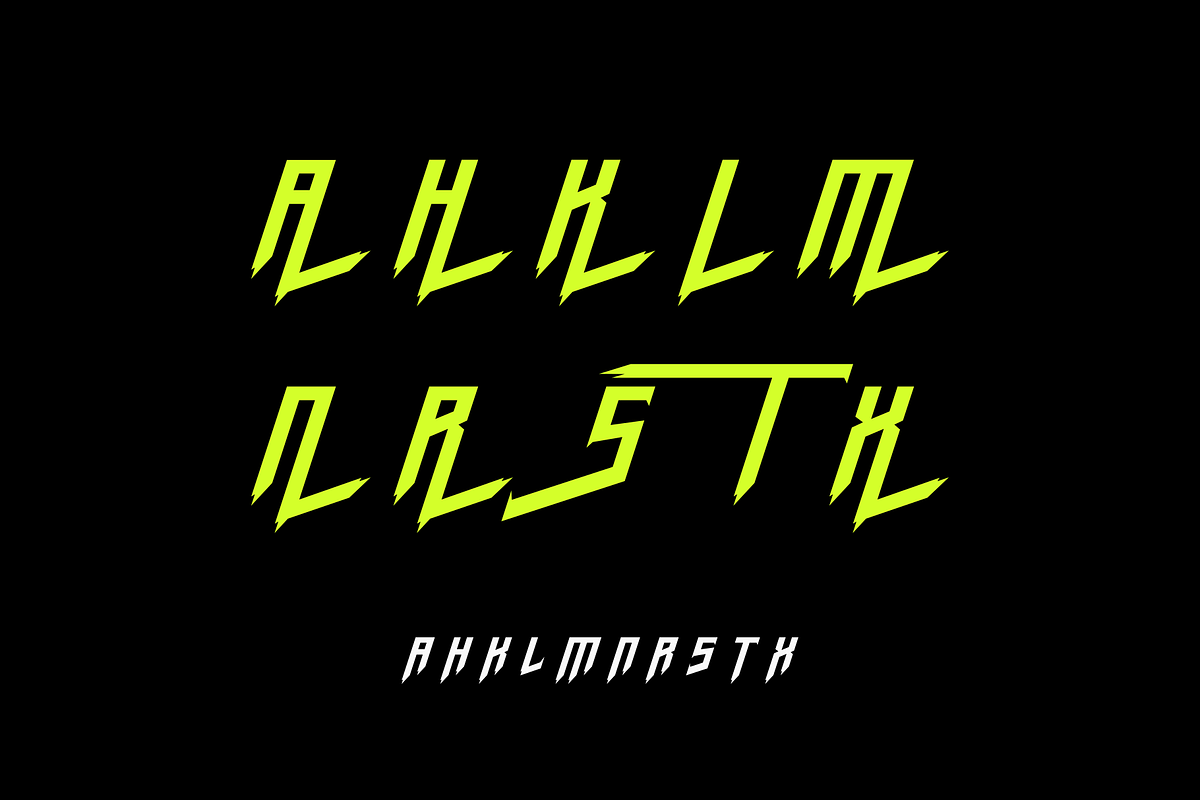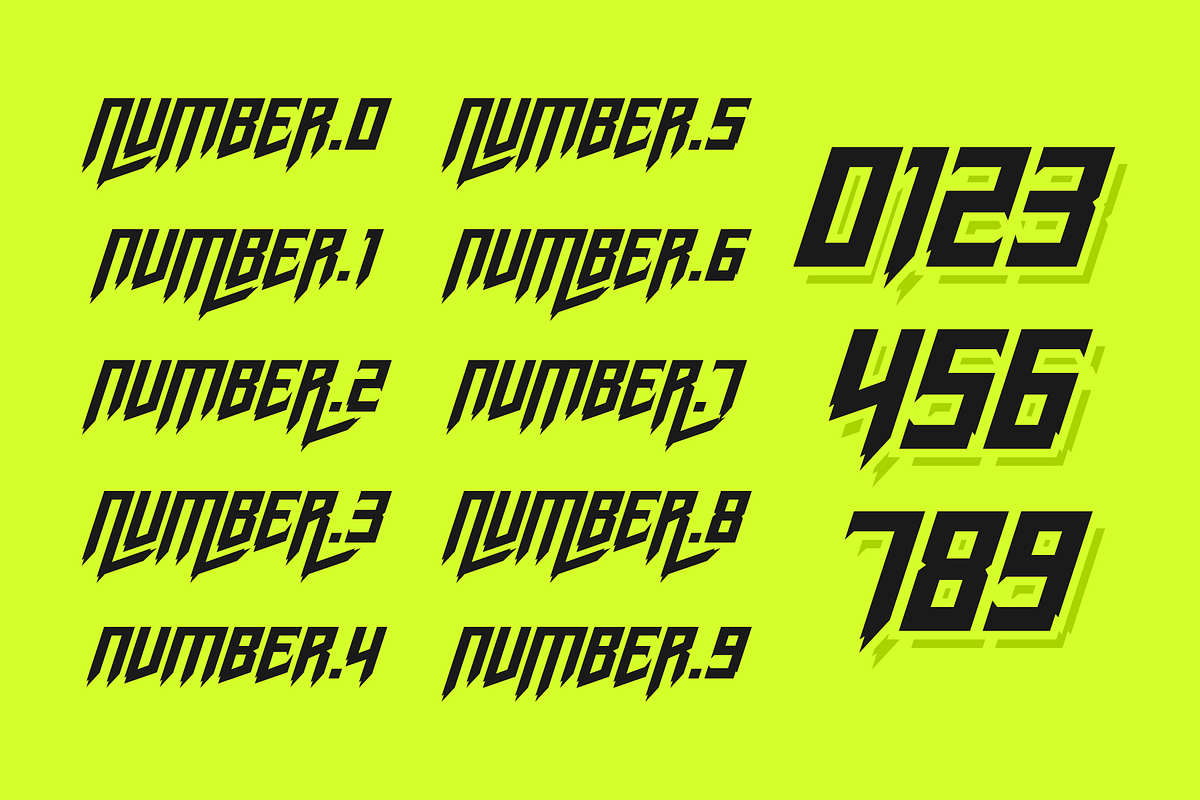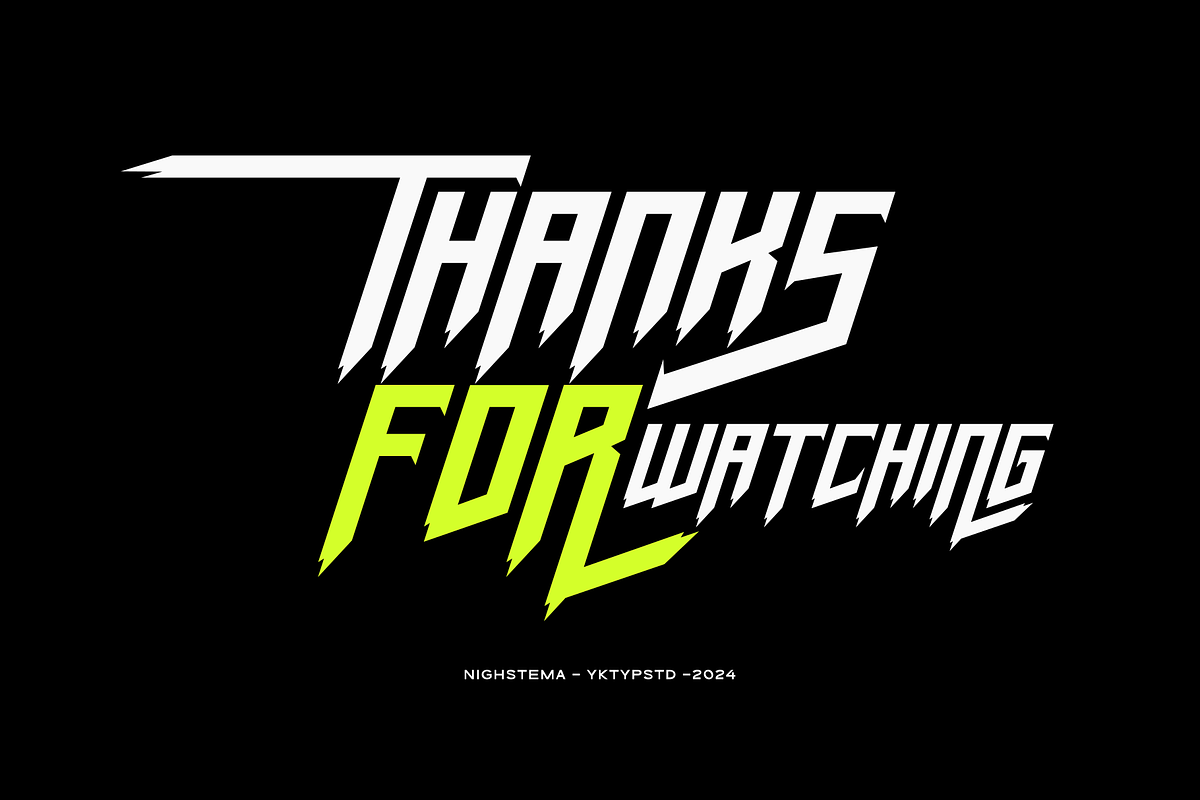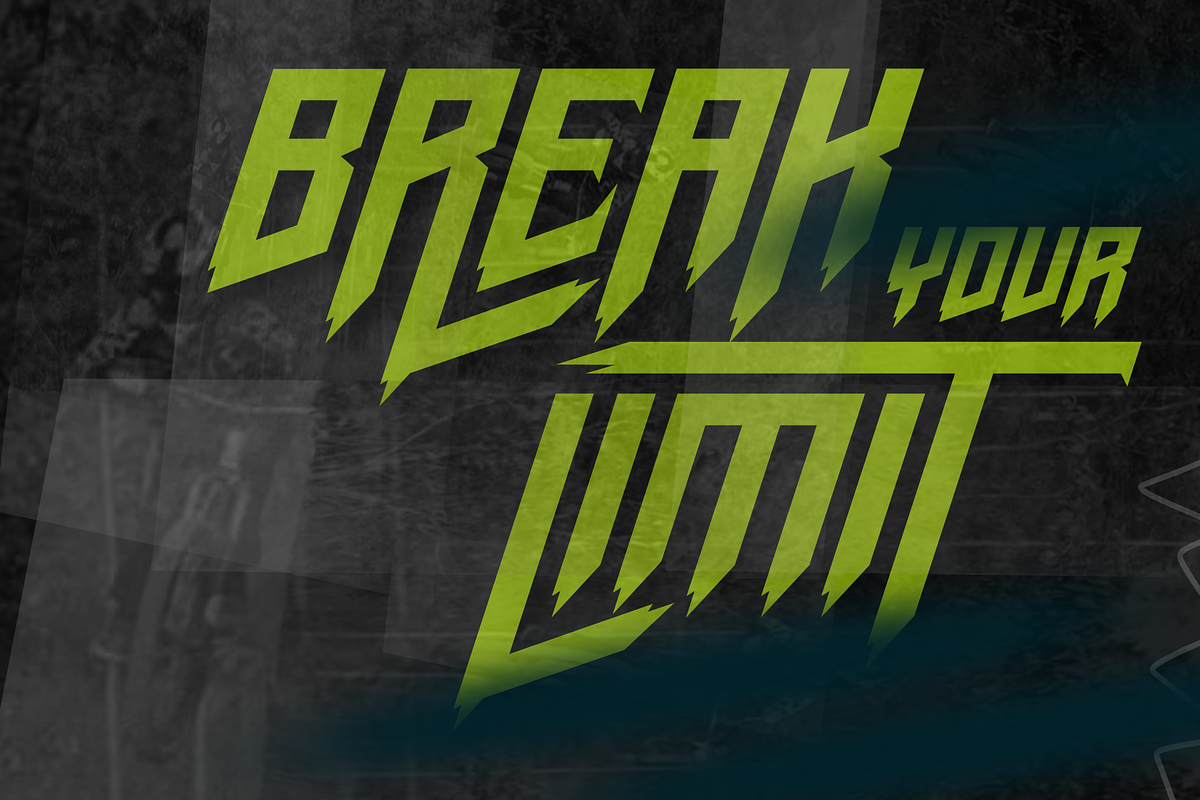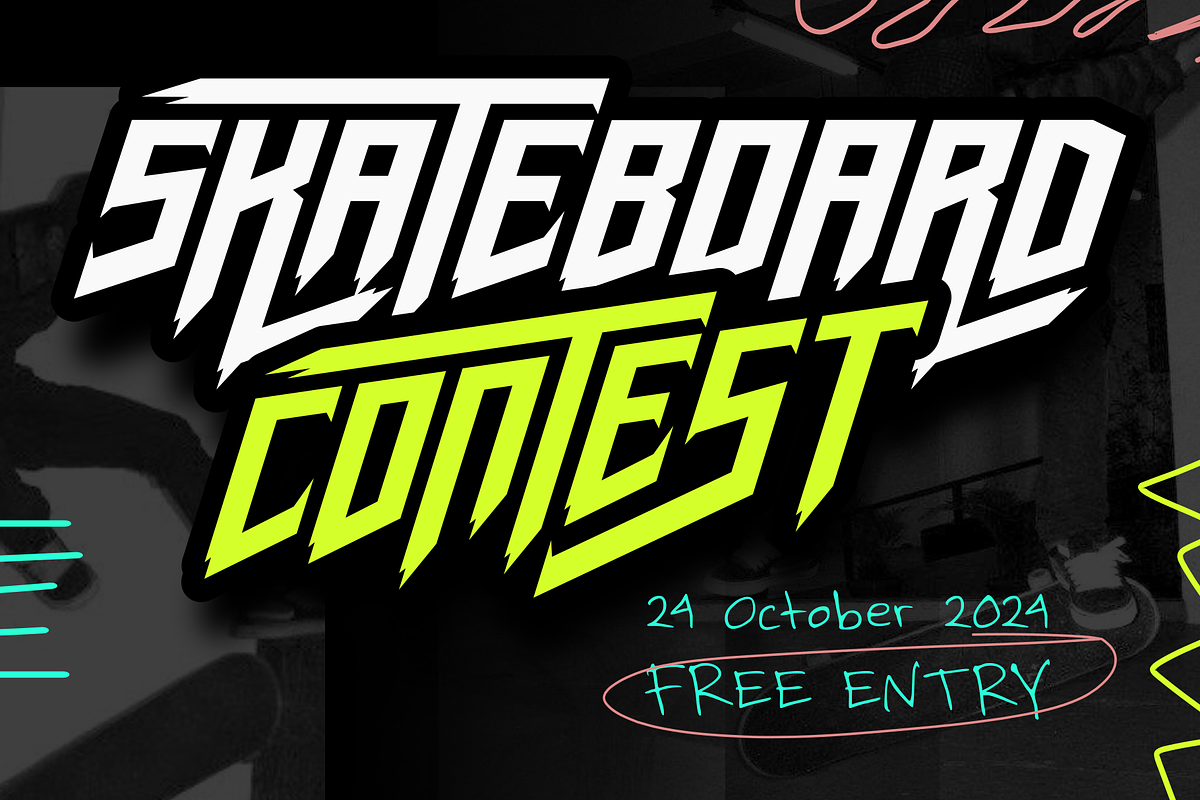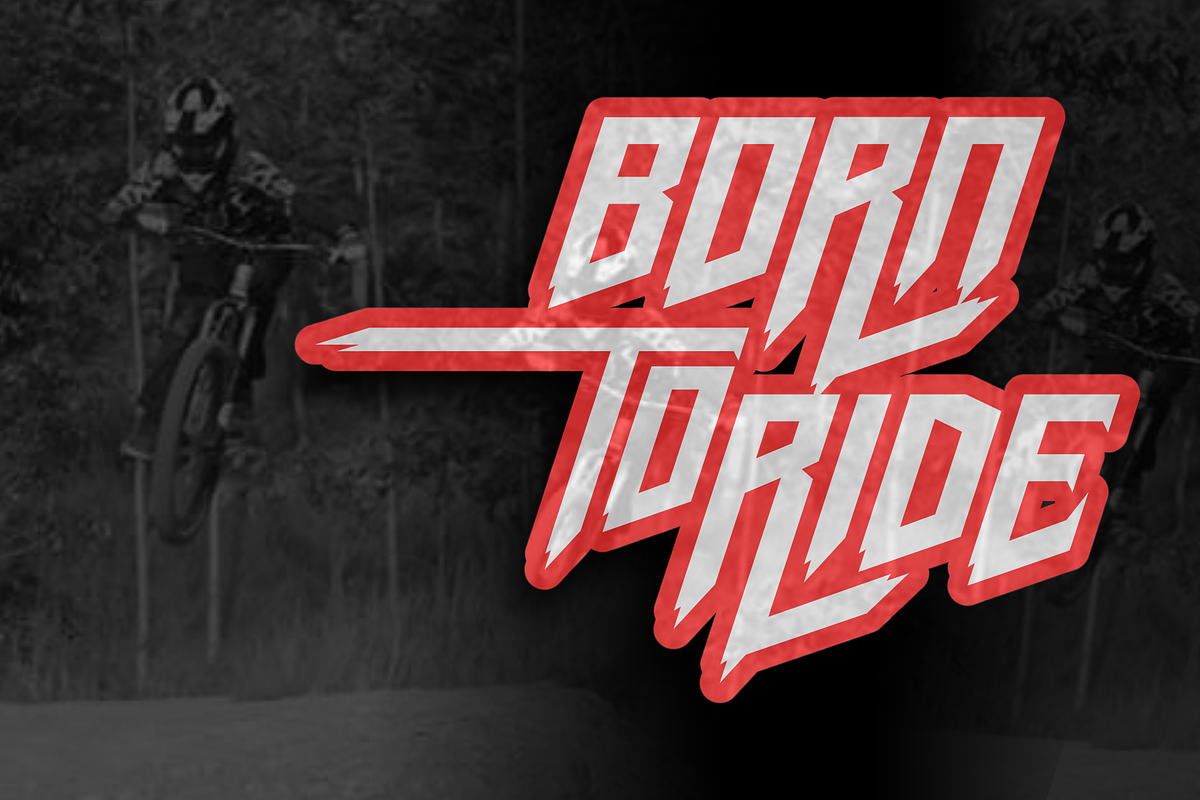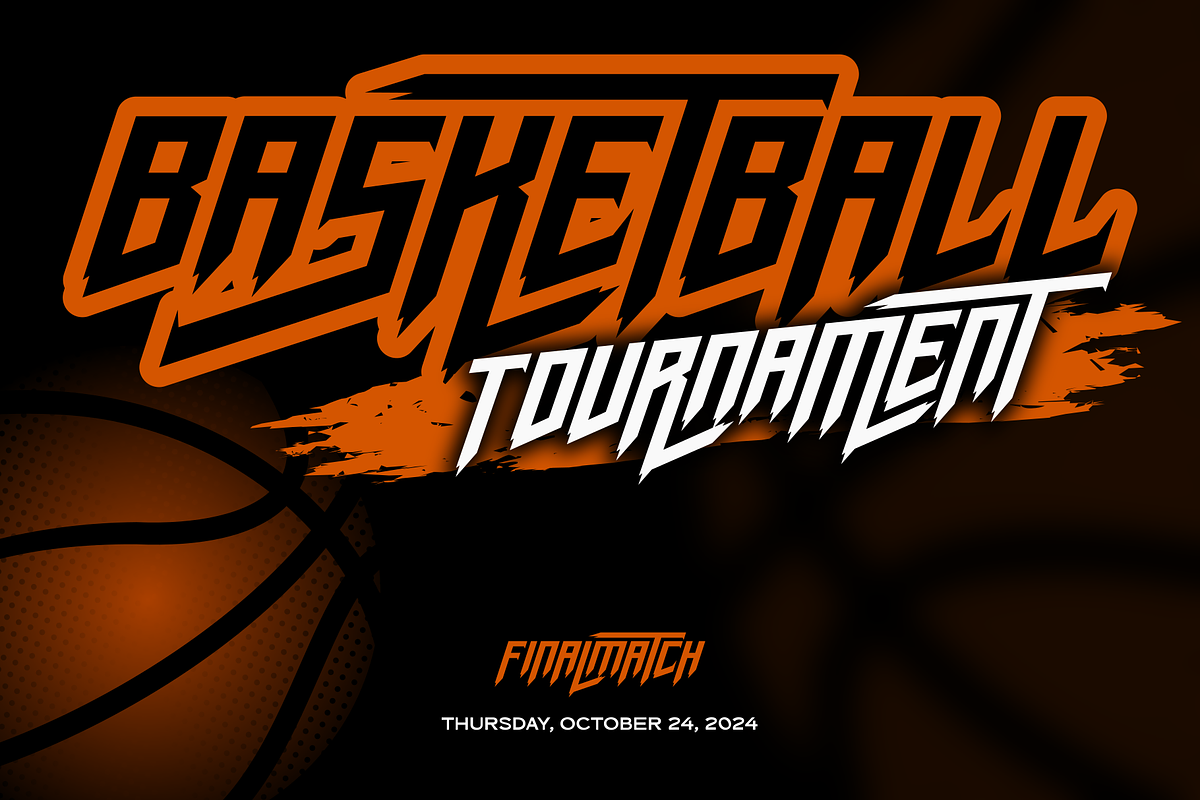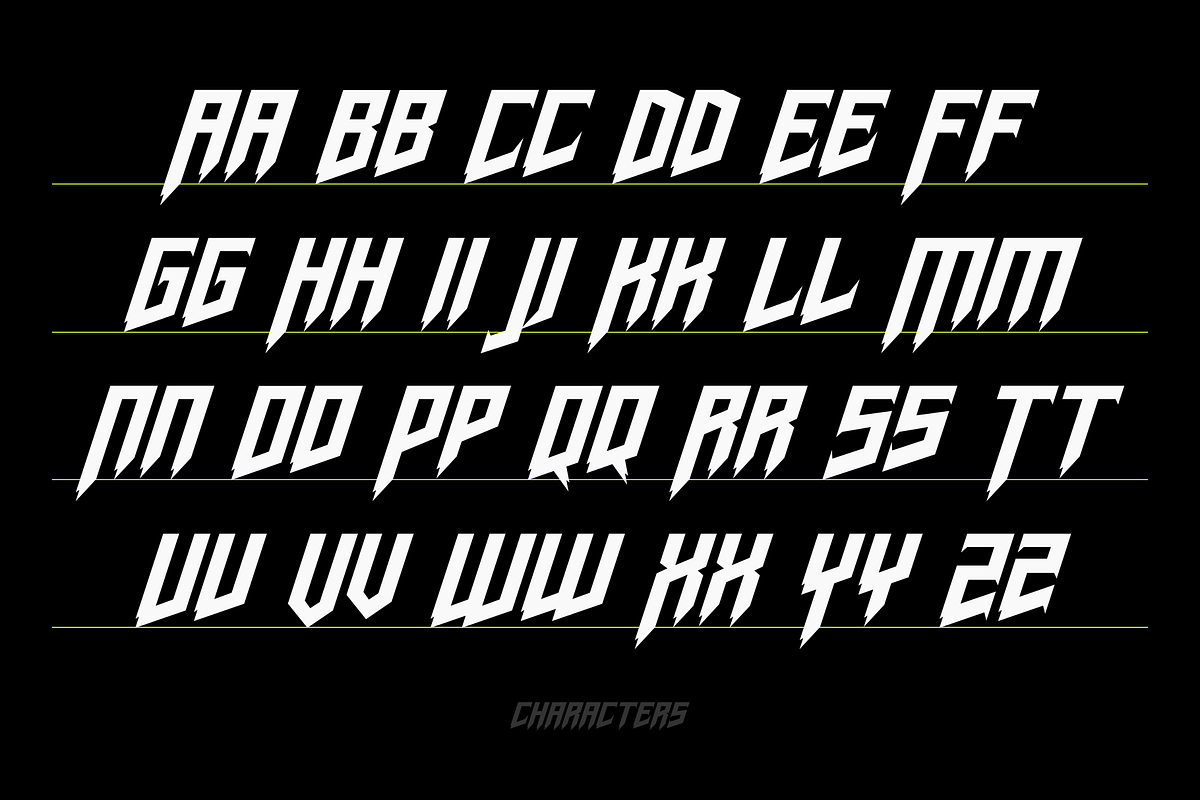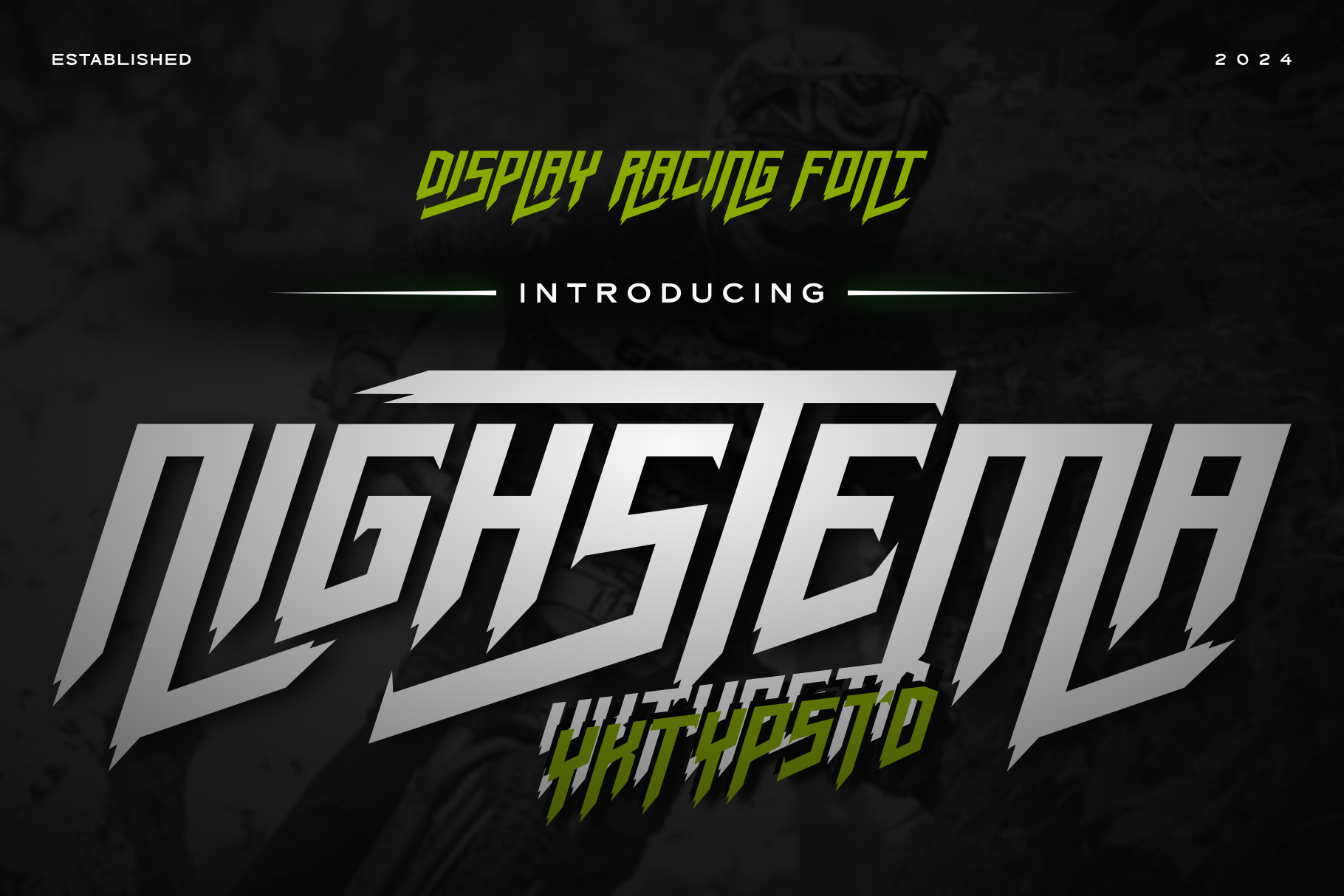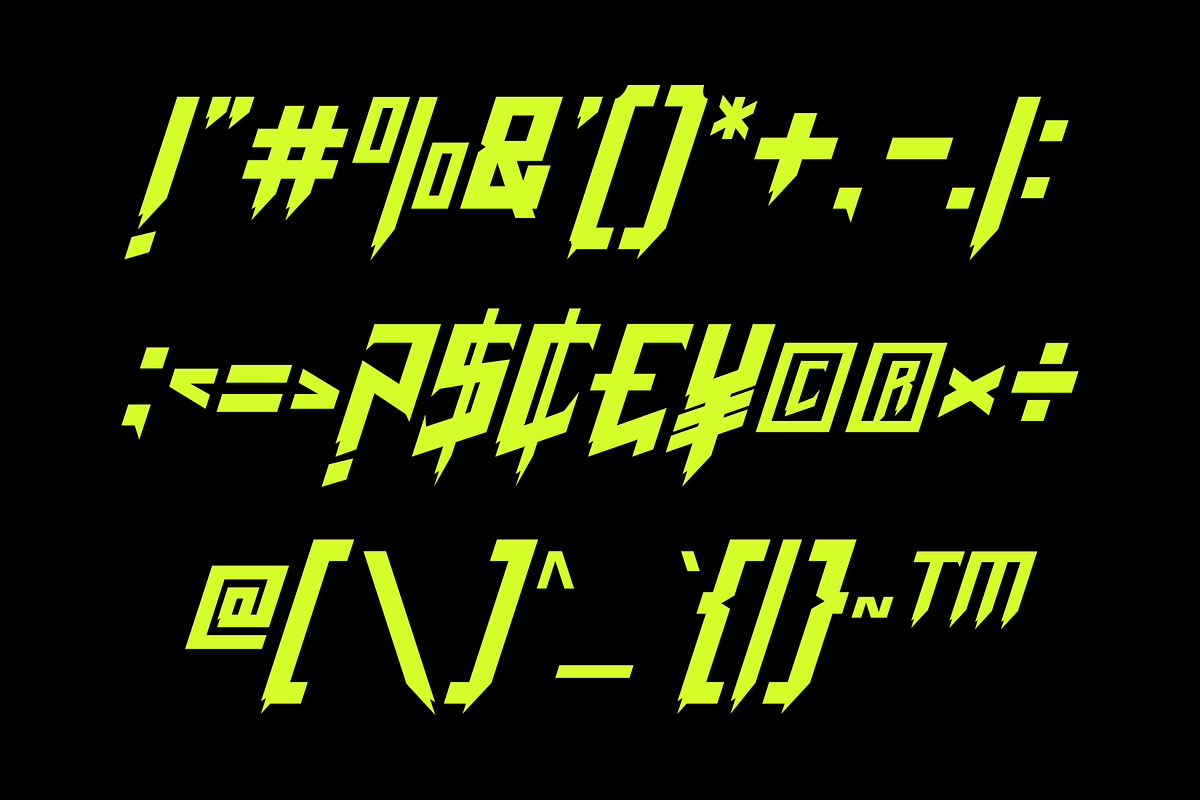
Nighstema Sports display font
Nighstema is a unique typeface specifically geared towards sports and racing themes. Its assertive, bold weight is designed to grab attention and convey energy and excitement. This typeface is perfect for titles of sporting events, automotive artworks, and magazine covers. Its dynamic and robust design makes it an excellent choice for sports-related merchandise, including brand identities, labels, and stickers, infusing projects with a high-speed, racing-inspired essence.
Incorporate Nighstema into your designs to give them a sporty edge, ideal for everything from jerseys to high-octane creative projects. The typeface's striking personality enhances your work with a touch of adrenaline, making it a top choice for any project that requires a powerful and exhilarating visual impact.